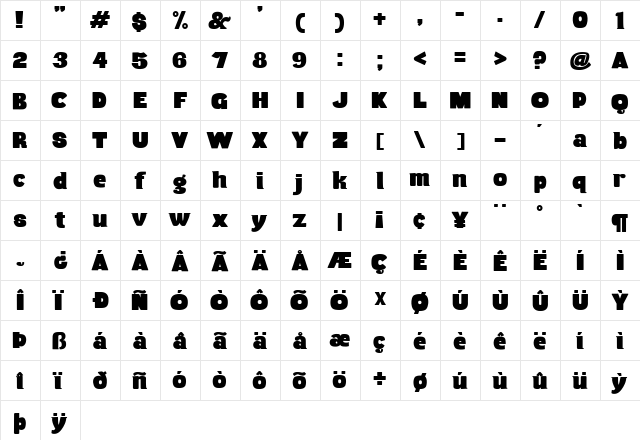
Musa Paradisiaca
| Foundry | Fernando Carvente |
| Designer | Fernando Carvente |
Design Context for Musa Typeface
Musa is a composed and adaptable typeface that performs quietly and consistently across a wide range of design contexts.